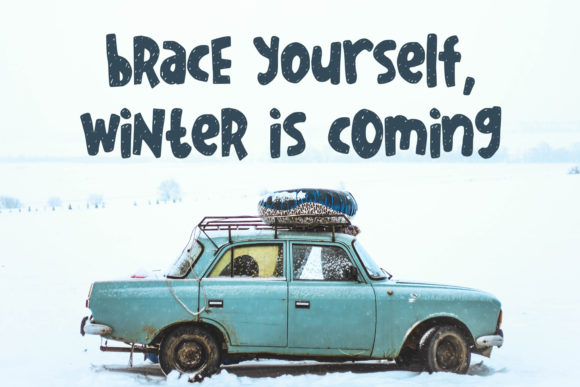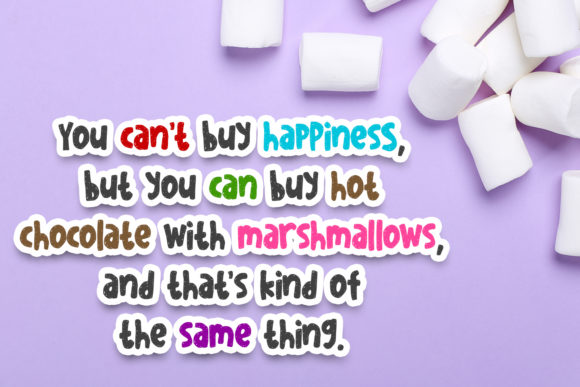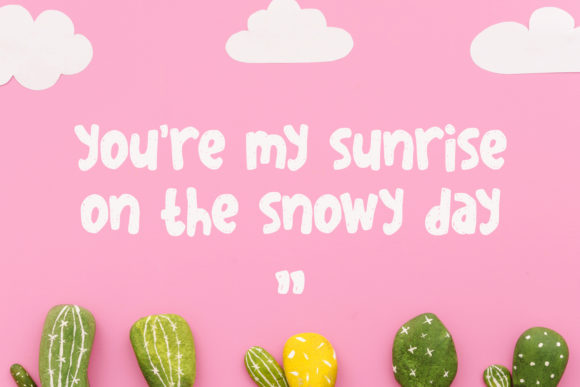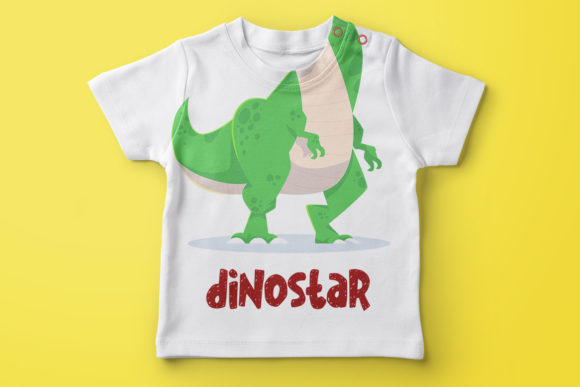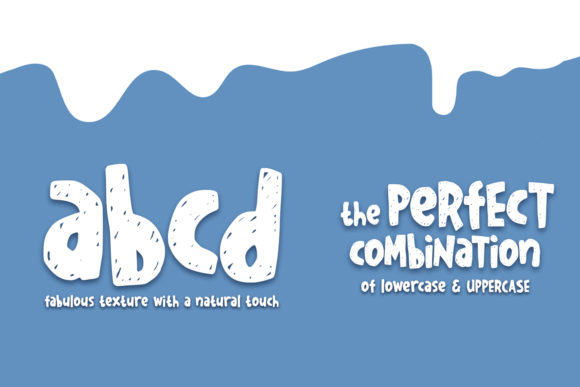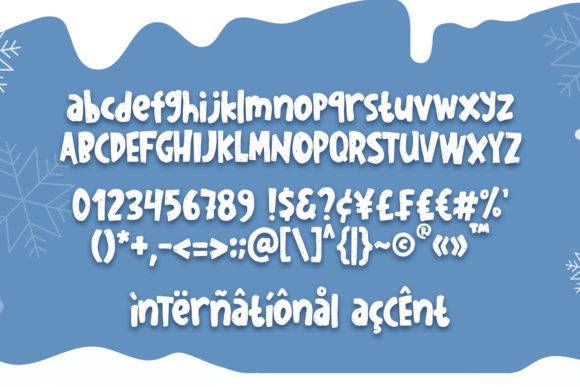
Introduction to Sketchy in Snow Font Font
Fonts play a crucial role in design, and the Sketchy in Snow Font font is a typeface that brings both character and versatility to any project. Whether you’re working on a branding project, a website, or a print design, the Sketchy in Snow Font font offers a unique style that can elevate your work.
Sketchy in Snow is a bold and cartoon style display font.
It has thick letters and a sweet feel and it will instantly make each of your designs stand out .
Key Features of Sketchy in Snow Font Font
Why Choose Sketchy in Snow Font Font?
The Sketchy in Snow Font font is more than just a typeface – it’s a design tool that helps you communicate your message with style and clarity. Its unique character set and versatile design make it suitable for a wide range of applications, from elegant invitations to bold headlines.
With its carefully crafted letterforms and balanced proportions, the Sketchy in Snow Font font ensures readability and visual appeal across all mediums.
What makes Sketchy in Snow Font font special?
The Sketchy in Snow Font font stands out with its unique design, exceptional readability, and versatility across various design applications.